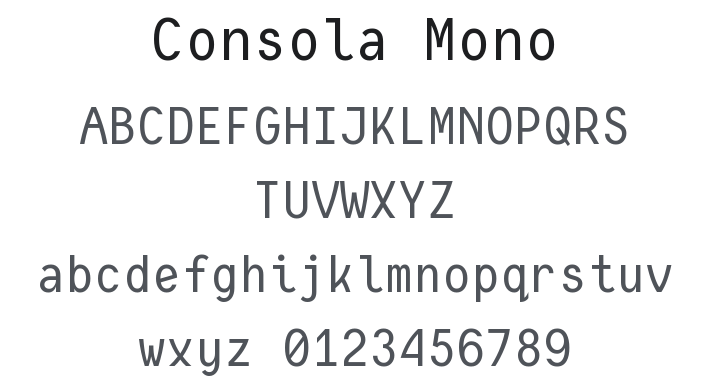
Consola Mono Font Family
About Consola Mono
It's my old unfinished font. I made some sketches of several glyphs 5-6 years ago, and I never finished this. Now I made missing glyphs, did changes of some glyphs and turn into monospaced font.